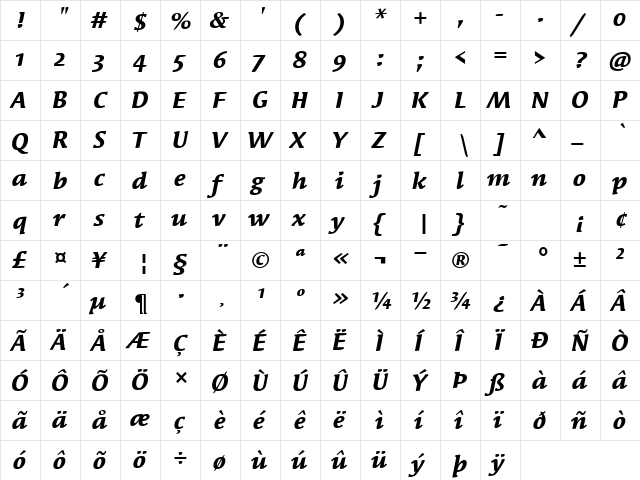
SyndorOSITC BoldItalic Font Preview
SyndorOSITC BoldItalic
Design Context for SyndorOSITC Typeface
SyndorOSITC is a composed and adaptable typeface that performs quietly and consistently across a wide range of design contexts. The slanted form adds forward momentum and visual energy. The heavy weight commands attention and anchors typographic hierarchies.